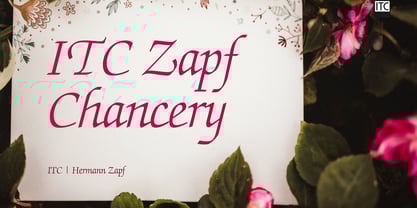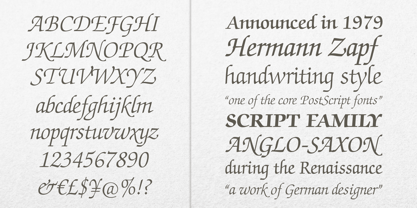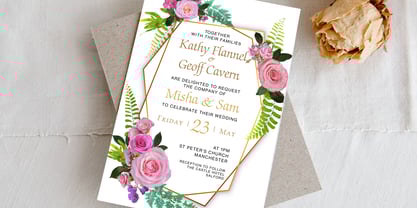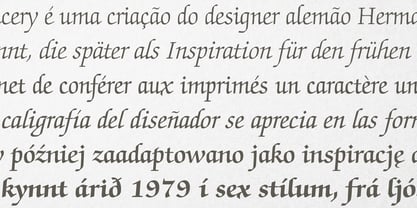
ITC Zapf Chancery®
La familia tipográfica ITC Zapf Chancery fue diseñada por Hermann Zapf y publicada por ITC. ITC Zapf Chancery contiene 6 estilos y opciones de paquete familiar.
ITC Zapf Chancery®, created by master calligrapher and type designer Hermann Zapf, is one of the most enduring script-inspired typefaces of the digital era. Zapf, celebrated for timeless designs such as Palatino, Optima, and Zapfino, drew inspiration from Renaissance chancery hands when he drew ITC Zapf Chancery, blending historical elegance with modern functionality. Part of Apple’s early system font set, ITC Zapf Chancery quickly became the go-to design for everything from wedding invitations to luxury branding.
ITC Zapf Chancery’s graceful strokes and natural rhythm bring a sense of romance and refinement to digital, as well as print environments. Its letterforms are ideally suited to foil-stamp typography and tactile printing techniques, making invitations and programs feel bespoke and memorable. For designers seeking luxury invitation fonts that balance heritage with contemporary usability, Zapf Chancery delivers both sophistication and approachability.
Whether embossed on a special invitation, engraved on menus, or featured in elegant branding, ITC Zapf Chancery continues to carry Hermann Zapf’s vision of type as both functional design and expressive art.